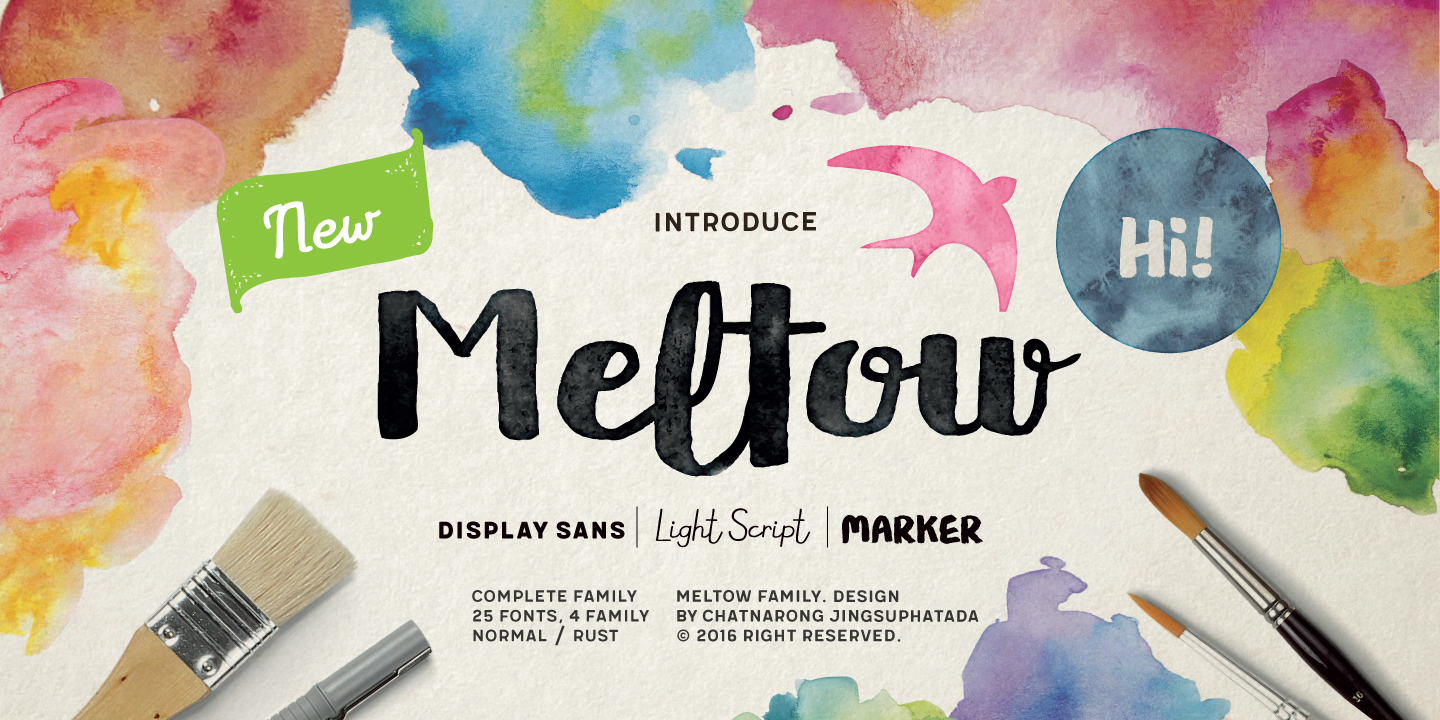
This creative display typeface is perfect for ice cream brands, summer campaigns, children's products, playful logos, candy packaging, fun websites, creative agencies, party invitations, and whimsical poster designs.
Meltow Font brings excitement to your design projects with its playful character and delightful personality. This charming display font features flowing letterforms that evoke warmth and friendliness, making it perfect for brands targeting families and younger audiences. The font's organic curves and cheerful appearance create an instant emotional connection while maintaining excellent readability across various applications.
The Meltow Font family includes regular, bold, and outline variations, offering designers creative flexibility for building engaging visual narratives. Each style maintains the font's signature warmth while providing different levels of visual impact for seasonal campaigns and brand communications.
Sweeten your creative projects with Meltow Font Free Download today. This delightful typeface combines playful aesthetics with professional functionality, making it essential for brands that want to communicate joy and approachability. Whether you're designing food packaging, creating children's content, or developing summer marketing campaigns, this font delivers heartwarming results with its friendly appeal and contemporary charm.
The carefully designed character shapes ensure consistent visual delight across all sizes and formats. Download Meltow Font now and add this cheerful typography solution to your creative toolkit for projects that need to spread happiness and positive energy.